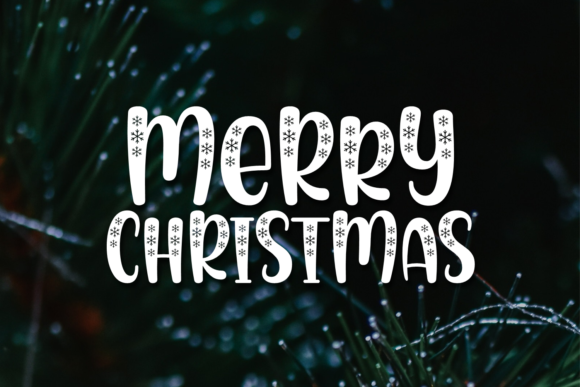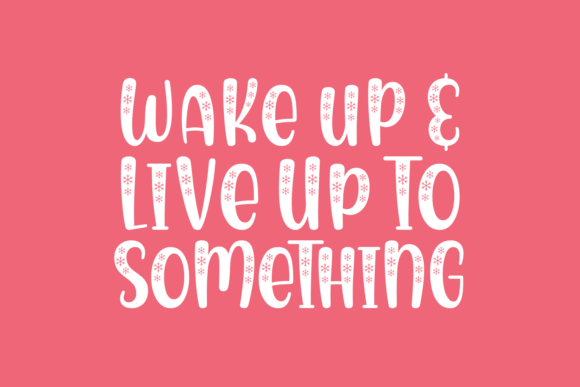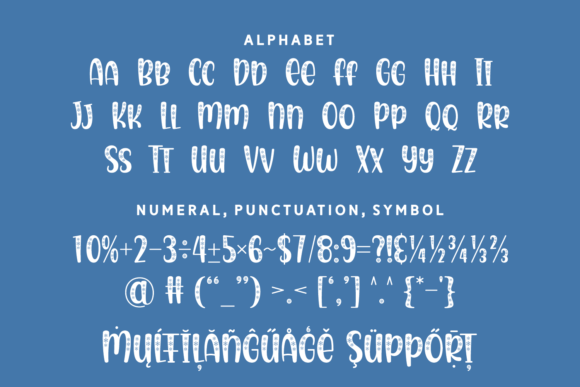
Introduction to Cristal Santa Font
Cristal Santa is a playful and charming decorative font that will impress you with its elegance and authenticity.
Use it for Christmas cards, gifts, apparel designs, stationery, or other projects that need a frosty look .
Key Features of Cristal Santa Font